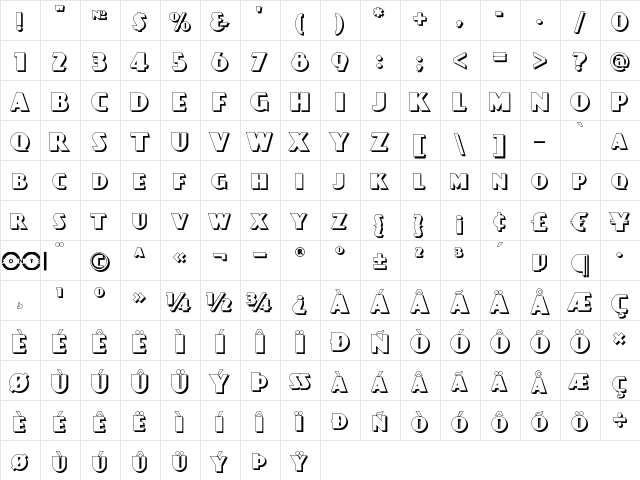
Day Poster Shadow NF Regular
Design Context for Day Poster Shadow NF Typeface
Day Poster Shadow NF brings ornamental detail and strong personality to headlines and identities, where visual impact matters more than quiet functionality.
Font Pairing: Pair with a clean neutral sans-serif for body copy to let Day Poster Shadow NF's character lead without overwhelming the composition.
Pro Tip: Use Day Poster Shadow NF exclusively at display sizes — it was designed to be seen, not read at length. Let a neutral companion handle body copy.